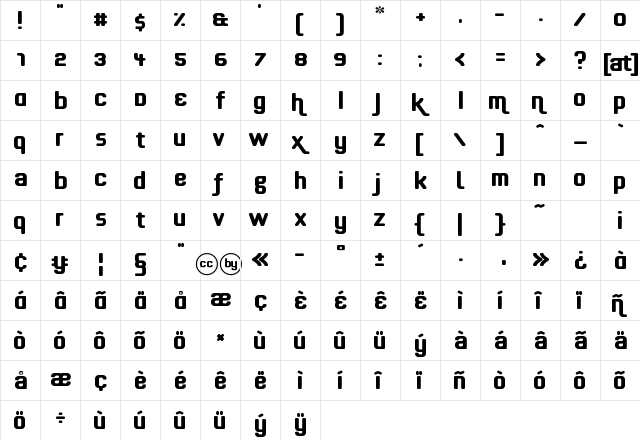
effortless Regular
| Designer | Tup Wanders |
Design Context for effortless Typeface
effortless is a composed and adaptable typeface that performs quietly and consistently across a wide range of design contexts.